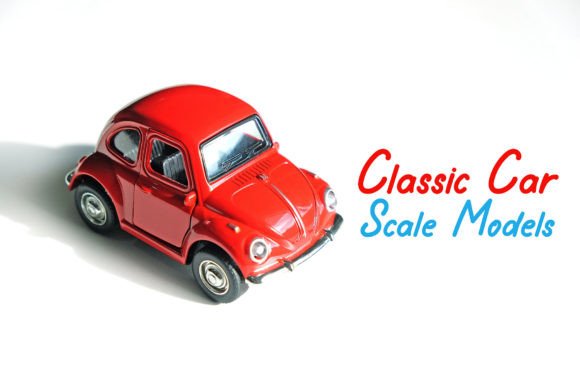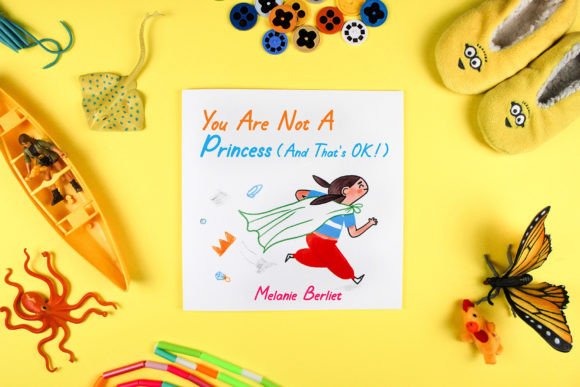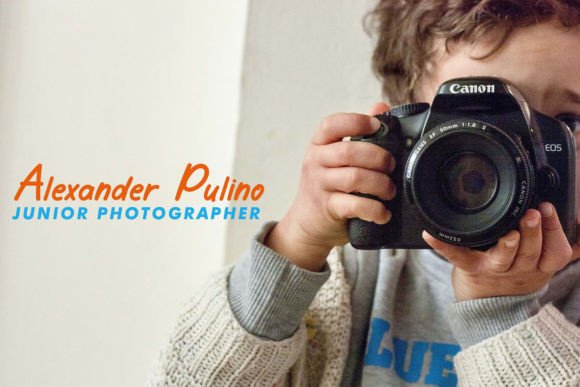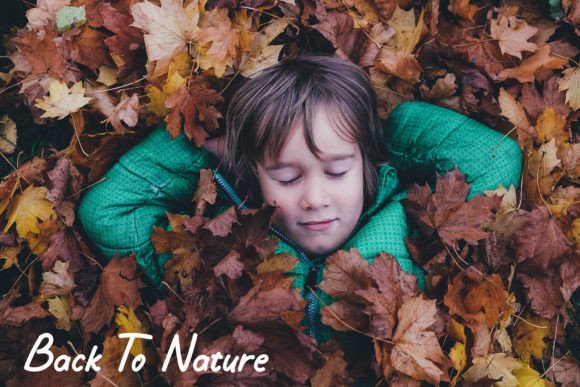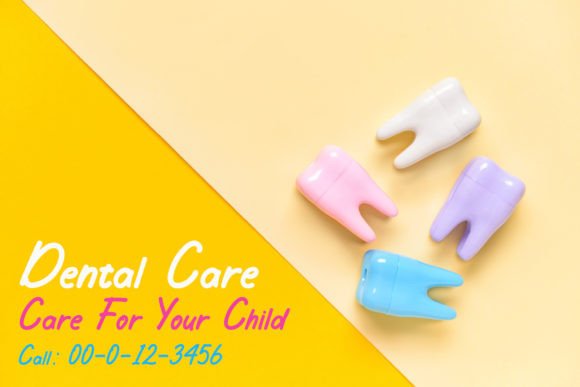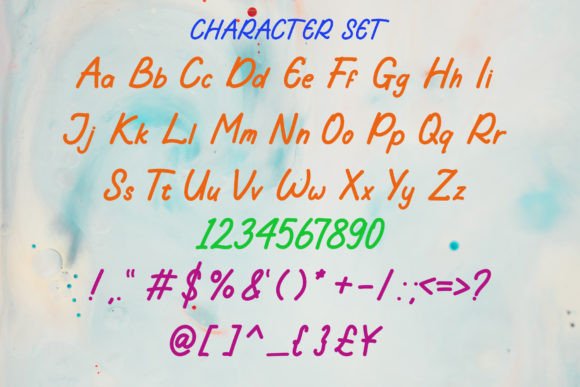
Introduction to Reminolla Font
Do you ever find yourself staring at a blank page, struggling to bring your creative ideas to life? The spark is there, but the right words just won’t seem to flow. This is where a good design resource can make all the difference. For designers, finding the perfect font can be a game-changer, elevating your project from good to great.
Enter the Reminolla Font, a casual and friendly handwritten font designed to bring your creative ideas to the highest level. With its masterful design, this font has the potential to become a true favorite among designers. Whether you’re working on a high-quality design project or just need a reliable font for your next creative endeavor, the Reminolla Font is a valuable addition to your design arsenal.
So, what sets the Reminolla Font apart? Its versatility, for one. With a transparent background and a wide range of uses, this font is perfect for everything from digital designs to print materials.
Key Features of Reminolla Font
- High-quality design resource ideal for creative projects, offering a unique and elegant aesthetic.
- Unique, hand-drawn design with a transparent background, providing flexibility and ease of use in any creative project.
- Perfect for use in logos, branding, and other creative projects where a high-quality, elegant font is desired.
Honest Review: Reminolla Font
As a designer, I’m always on the lookout for high-quality design resources to elevate my creative projects. Recently, I had the chance to try out the Reminolla Font, and I’m excited to share my honest review.
- ✨ Unique and elegant design style that adds a touch of sophistication to any project.
- ✨ High-quality font files that are crisp and clear, even at large sizes.
- ✨ Transparent background, making it easy to use with any background color or image.
- ⚠️ Limited character set, which may not be suitable for projects that require a wide range of characters.
Overall, I’m impressed with the Reminolla Font’s design and quality. While it may have some limitations, it’s a great resource for designers looking to add a touch of elegance to their creative projects.
Tips for Getting the Most Out of Reminolla Font
To get the most out of the Reminolla Font, try pairing it with other high-quality design resources to create a cohesive look. Experiment with different font sizes and styles to add visual interest to your design.
The Reminolla Font is perfect for a variety of creative projects, including logos, business cards, and social media graphics. Its transparent background makes it easy to layer over other design elements.